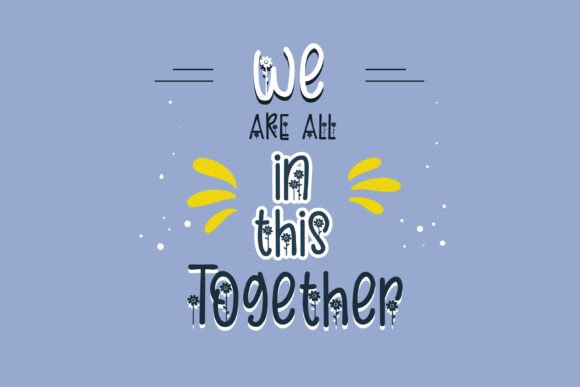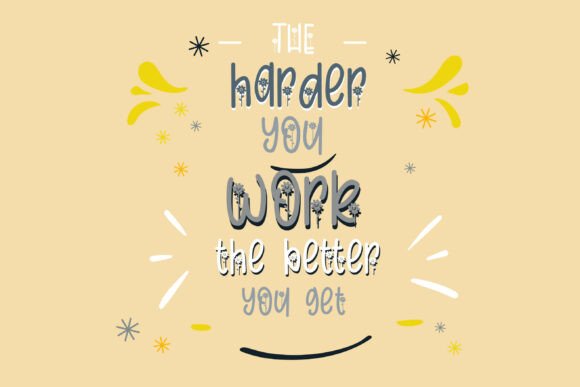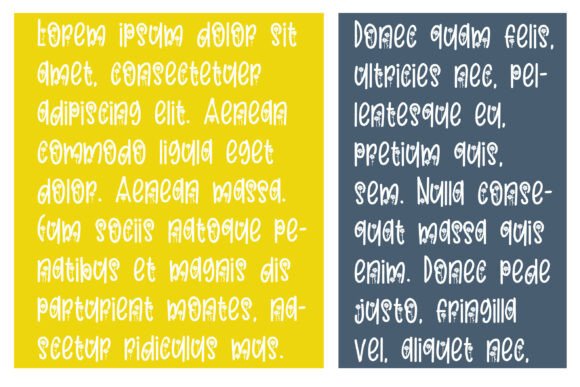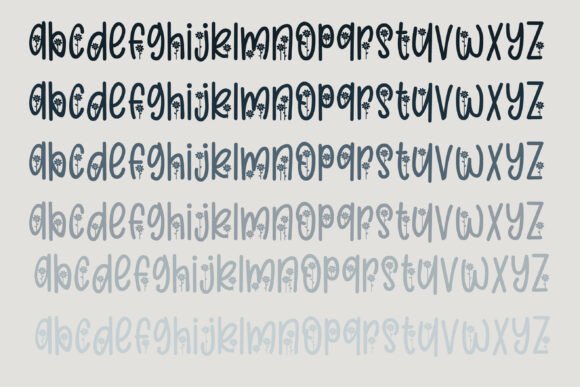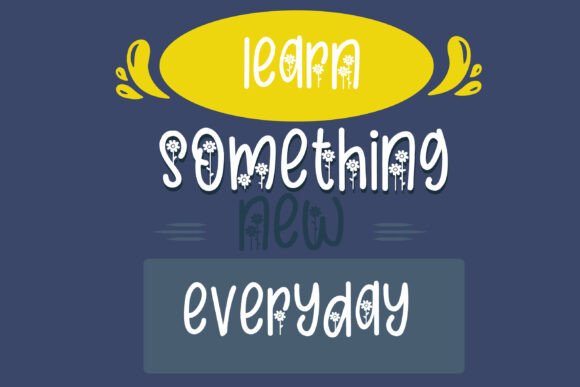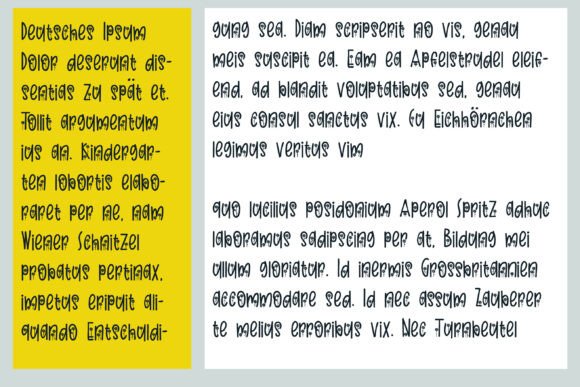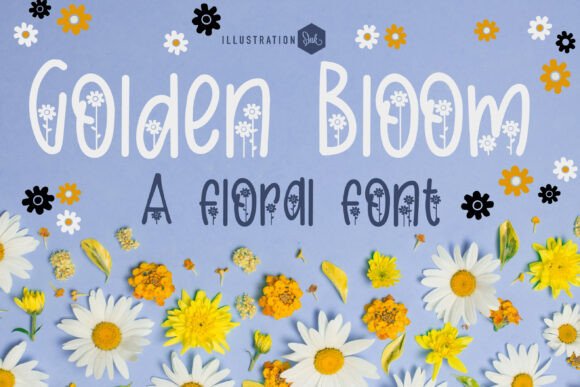
Introducing Golden Bloom Family Font: Elevate Your Design with Cheerful Sophistication
Are you looking for a font that embodies the perfect blend of modernism and organic whimsy? Look no further than the Golden Bloom Family Font. This stunning sans-serif font is designed to bring a touch of cheerful sophistication to your designs, making it ideal for lifestyle magazine mastheads, boutique artisanal labels, spring-themed marketing, and modern nursery decor.
What Makes Golden Bloom Unique?
Golden Bloom is a tall, monolinear sans-serif font that stands out from the crowd with its extreme verticality and soft, rounded terminals. But what truly sets it apart is the intricate floral motifs that grow internally within every character. This distinctive feature bridges the gap between clean modernism and organic whimsy, creating a unique visual identity that’s both modern and playful.
Key Features of Golden Bloom
- Extreme Verticality: Golden Bloom’s tall stature gives it a commanding presence, making it perfect for headlines, titles, and mastheads.
- Soft, Rounded Terminals: The font’s smooth, rounded terminals add a touch of warmth and approachability, balancing out its modern aesthetic.
- Internally Growing Floral Motifs: Each character features delicate floral patterns that add an organic, whimsical touch to your designs.
- High X-Height: Golden Bloom’s high x-height ensures excellent legibility, making it suitable for body text and captions.
Best Use Cases for Golden Bloom
Golden Bloom’s unique blend of modernism and whimsy makes it an excellent choice for a variety of design applications. Here are some of the best use cases for this versatile font:
- Lifestyle Magazine Mastheads: Add a touch of sophistication and elegance to your magazine’s title with Golden Bloom.
- Boutique Artisanal Labels: Perfect for branding and packaging, Golden Bloom’s unique floral motifs evoke a sense of handmade craftsmanship.
- Spring-Themed Marketing: Celebrate the season with Golden Bloom’s cheerful, vibrant aesthetic, ideal for spring-themed campaigns and promotions.
- Modern Nursery Decor: Bring a touch of whimsy and playfulness to your nursery designs with Golden Bloom’s delicate floral patterns.
Tips for Using Golden Bloom Effectively
To get the most out of Golden Bloom, here are some expert tips for using this beautiful font:
- Experiment with Font Sizes: Golden Bloom’s tall stature and high x-height make it legible at a range of font sizes, from large headlines to smaller body text.
- Pair with Neutral Backgrounds: Let Golden Bloom’s intricate floral motifs take center stage by pairing it with neutral backgrounds that won’t compete for attention.
- Play with Color: Golden Bloom’s cheerful aesthetic lends itself perfectly to bright, bold colors – experiment with different hues to find the perfect match for your design.
Golden Bloom Family Font is a game-changer for designers and crafters looking to add a touch of cheerful sophistication to their work. With its unique blend of modernism and organic whimsy, this stunning sans-serif font is sure to elevate your designs and leave a lasting impression. Whether you’re working on a lifestyle magazine, boutique label, or spring-themed marketing campaign, Golden Bloom is the perfect choice for adding a touch of elegance and playfulness.